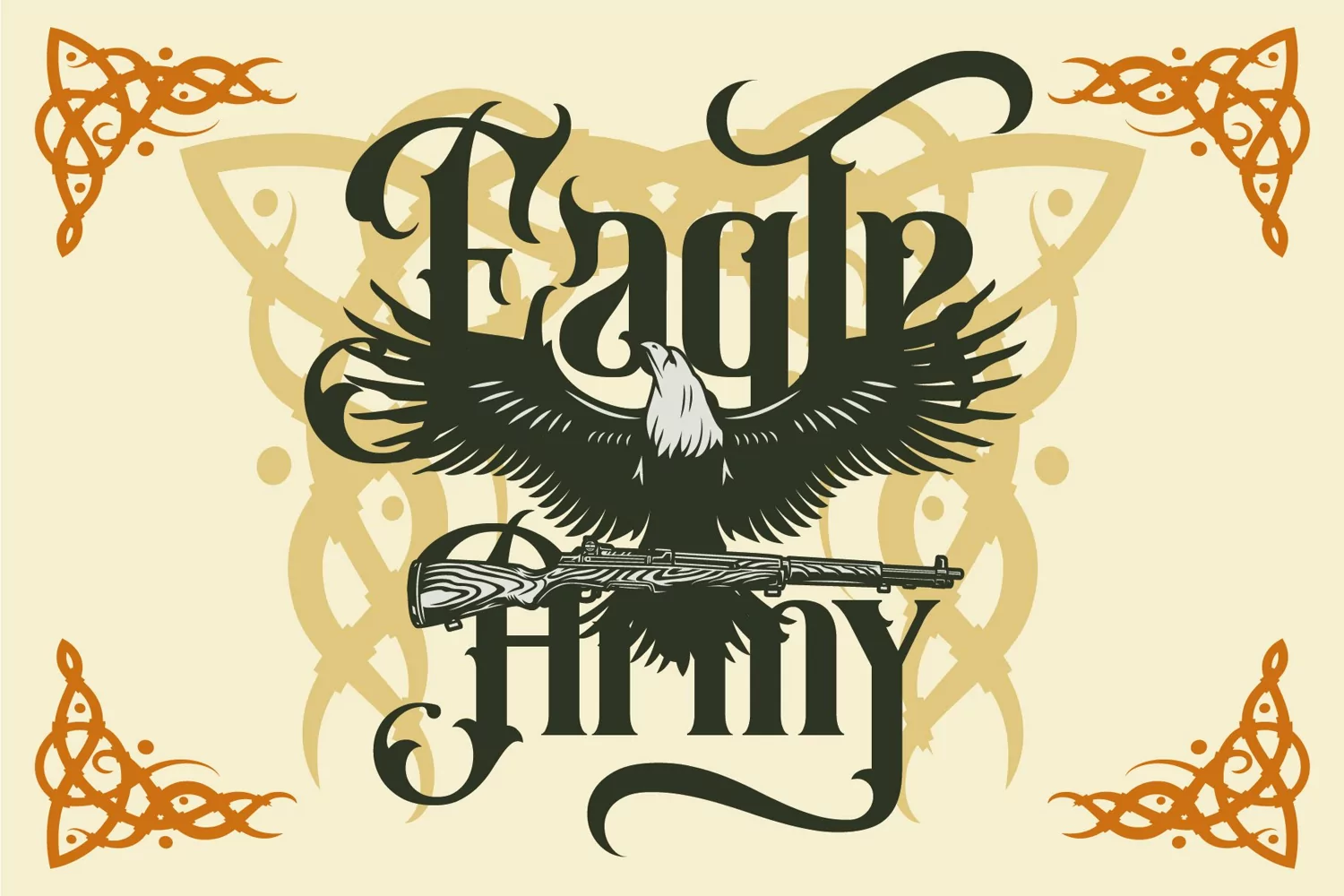
Meg Renault - Vintage Font
If you looking for strong font for display or title this item is a great choice to make your design authentic.
Meg Renault font has 201 character glyphs included the multilingual and alternate glyphs, the alternate glyphs will make your design more decorative.